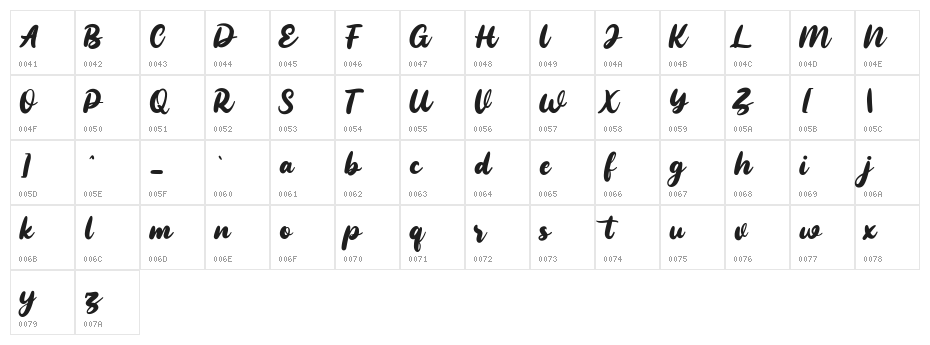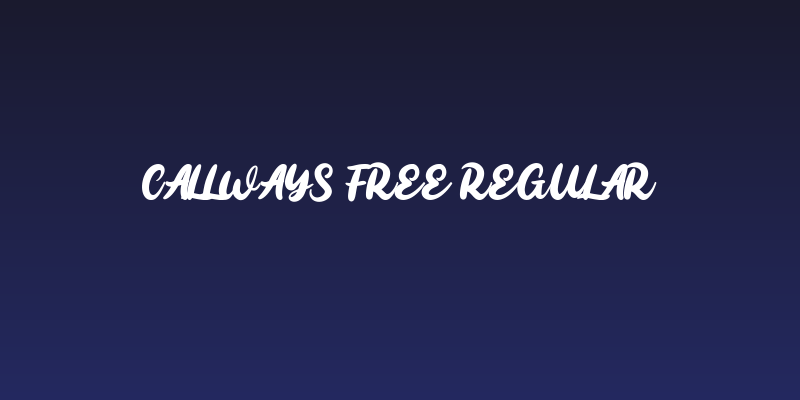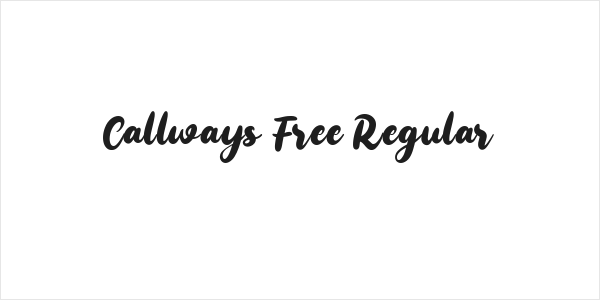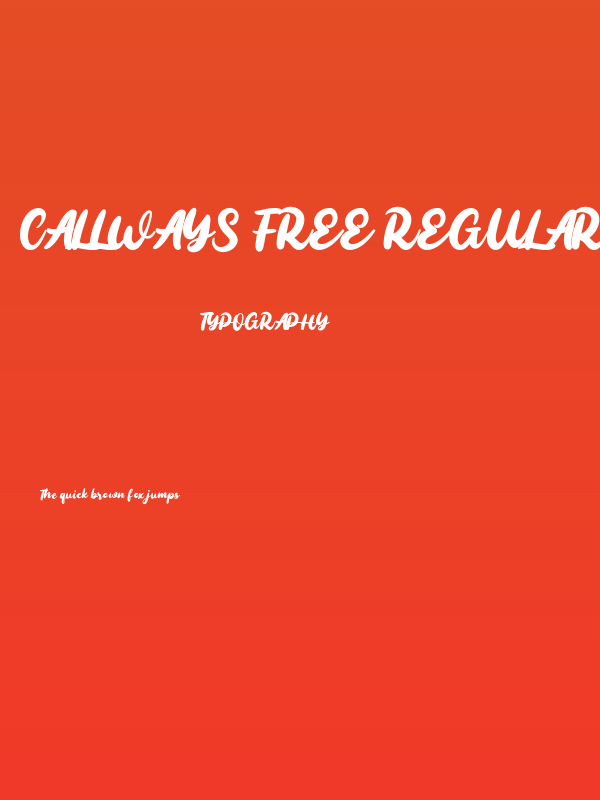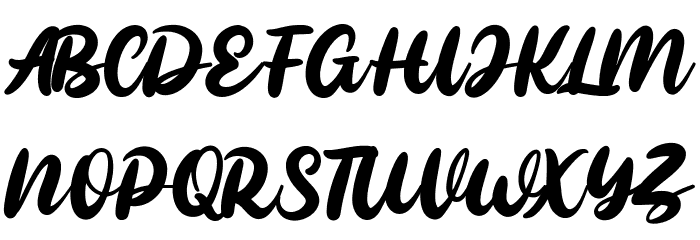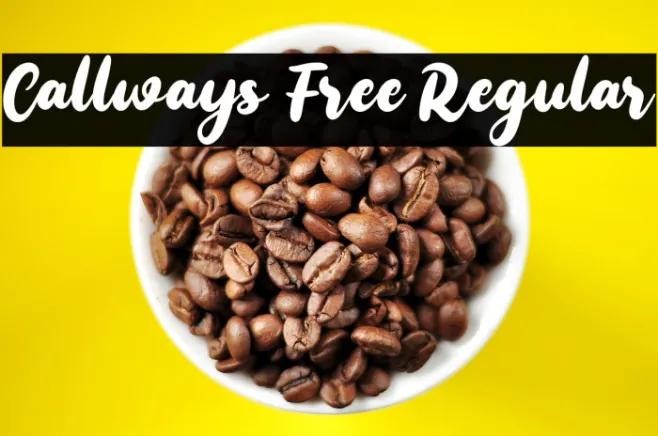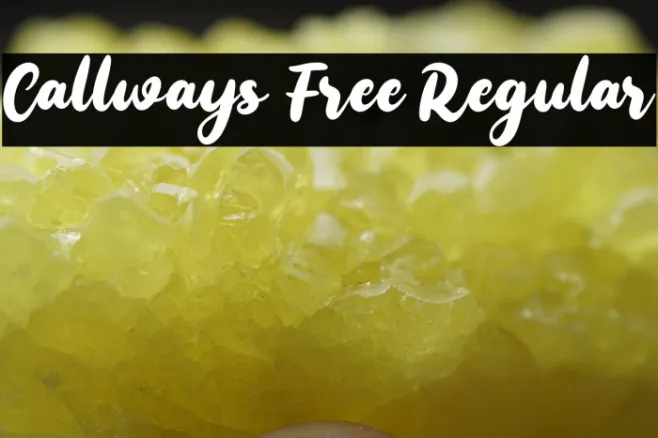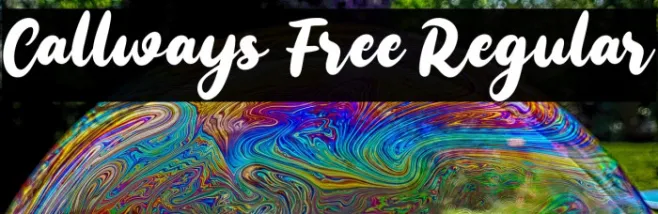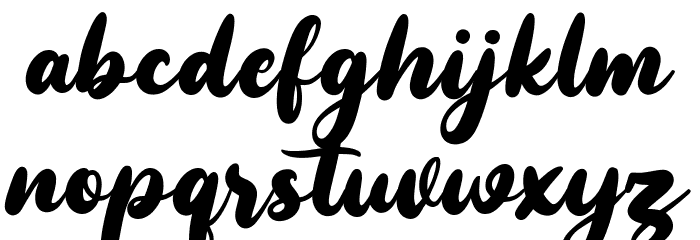
Callways Free Regular Font
Callways Free Regular Description
This font features a bold, flowing script style that exudes a sense of elegance and dynamism. The characters are interconnected, creating a seamless and fluid appearance. The strokes are thick and consistent, providing a strong visual impact. The uppercase letters are slightly more ornate, with sweeping curves and flourishes, while the lowercase letters maintain a more subdued yet stylish look. The font's overall appearance is both modern and classic, making it versatile for various design applications. Its bold nature ensures readability while maintaining a decorative flair.